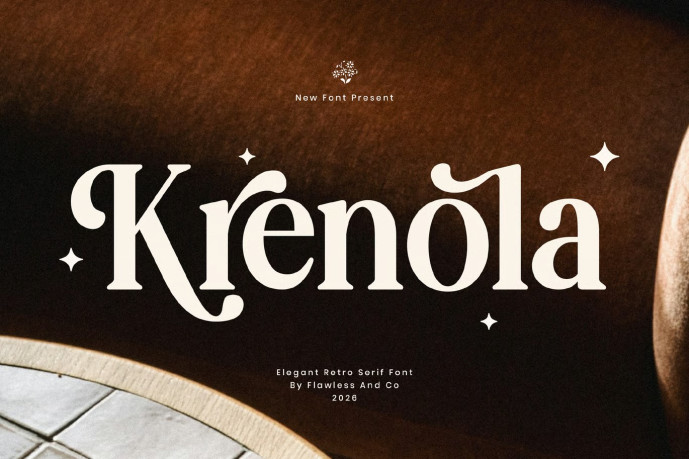
Krenola – Elegant Retro Serif Font
Krenola is an elegant retro serif font designed to celebrate timeless elegance with a distinctive vintage flair. Featuring refined serif shapes, graceful curves, and beautifully crafted retro-inspired letterforms, Krenola creates a harmonious balance between classic charm and modern sophistication.
Its stylish appearance brings a sense of luxury and nostalgia, making it a perfect choice for designs that demand both character and refinement.